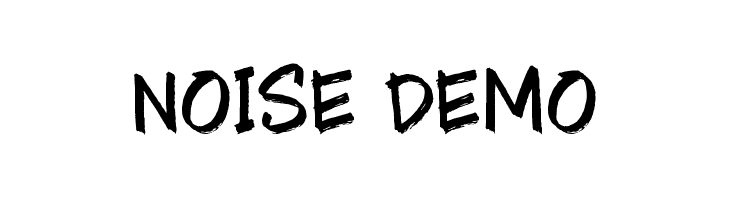
A pixelated, blocky font with a retro digital aesthetic.
A dynamic script font with fluid, brush-like strokes and a handcrafted feel.
A bold, irregular font with a vintage punk rock style.
A bold, geometric font with a modern and impactful design.
A bold, 3D outlined font with a modern, impactful style.
A bold, playful, and condensed font with rounded edges.
A playful, geometric font with bold serifs and a modern flair.
A modern, semi-bold italic sans-serif font with a sleek and dynamic appearance.
Illustrative font featuring detailed bug drawings as characters.
A bold and expressive script font with flowing, interconnected letterforms.
设计师偏爱 Marietta Five Regular, Rithem Personal Use, VINTAGE PUNK, Hanzui Bold and Special Agent 3D,因为其造型干净、适用范围广—— 从品牌识别到落地页、海报都能胜任。